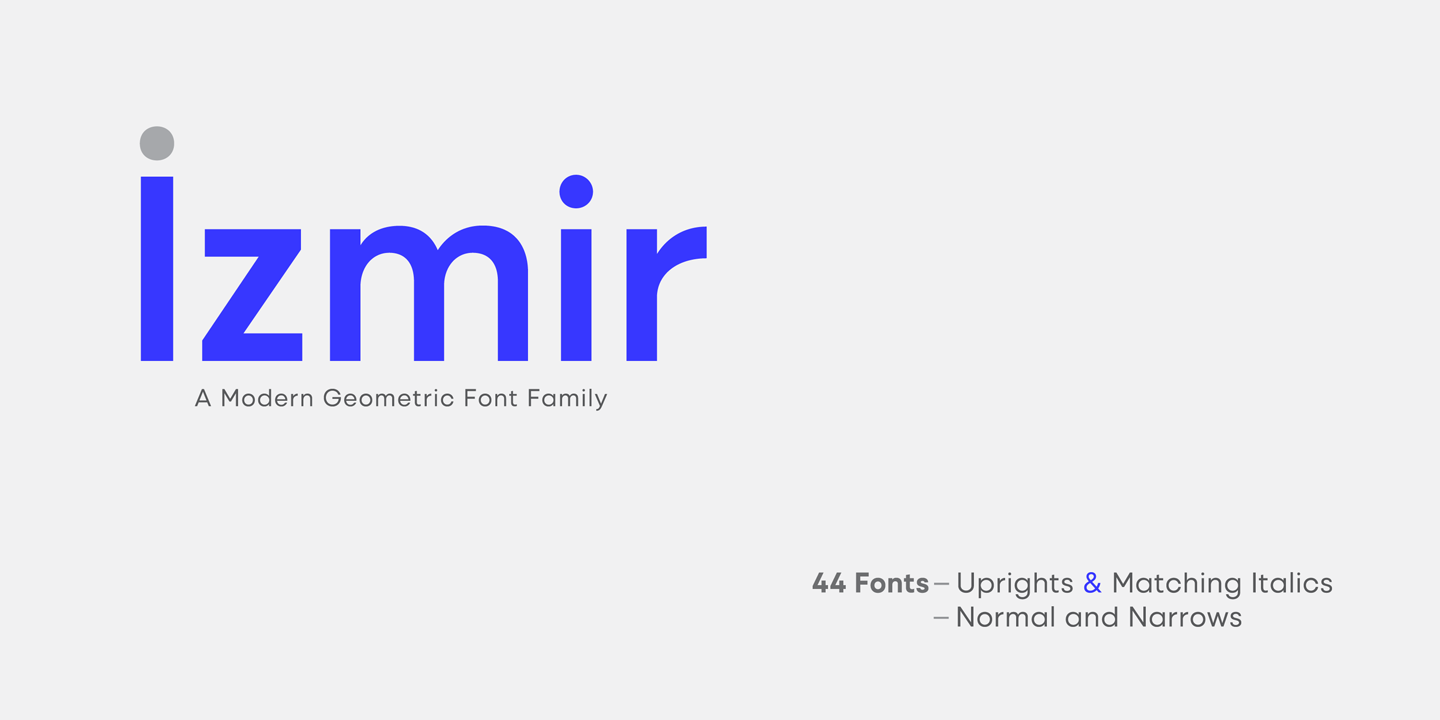
Izmir Font is a modern and dynamic typeface perfect for branding, posters, editorial design, and digital media. Its clean yet stylish letterforms give a fresh and urban feel, inspired by the vibrant spirit of the city it’s named after.
What makes Izmir Font Free Download so exciting is its versatility and contemporary aesthetic, making it suitable for creative projects that demand both professionalism and personality.
The Izmir Font family typically includes multiple weights and styles, such as Regular, Bold, and Italic, providing designers with flexibility for diverse typographic compositions.
Whether you're designing logos, marketing materials, or social media graphics, Izmir Font Free Download offers a modern flair that helps your projects stand out with confidence and style.